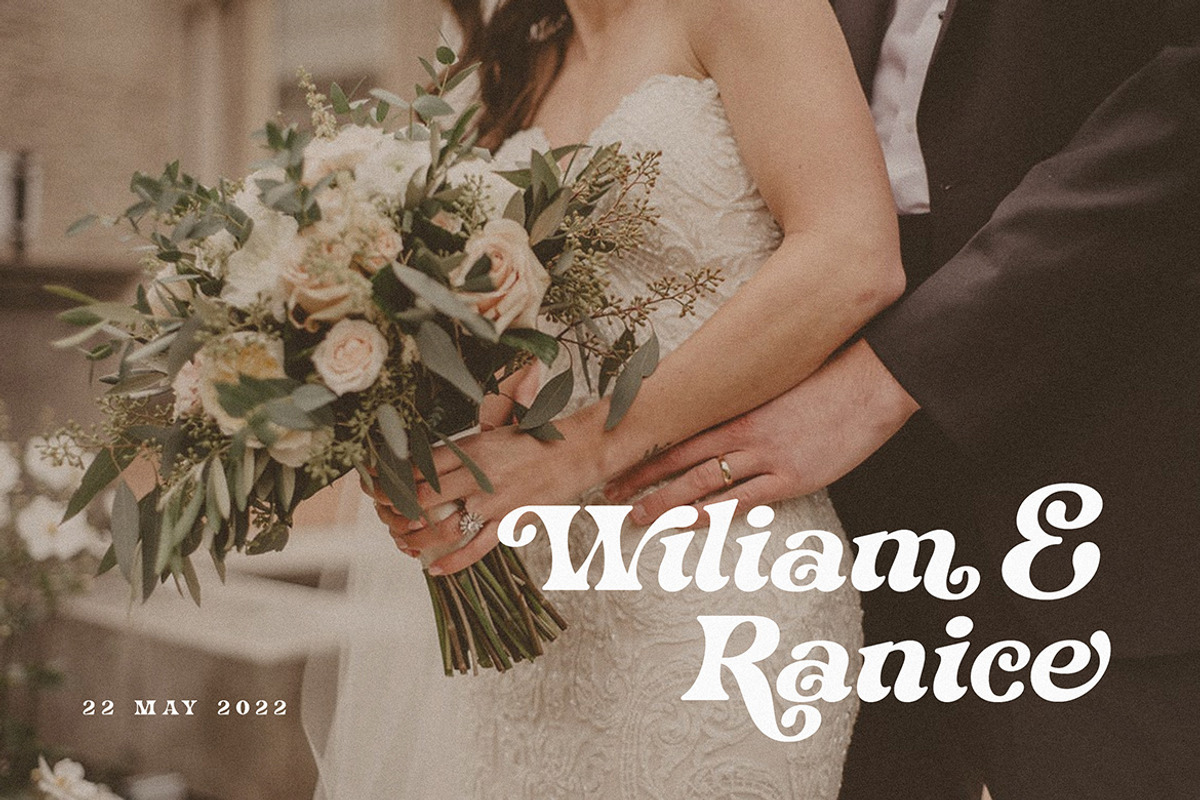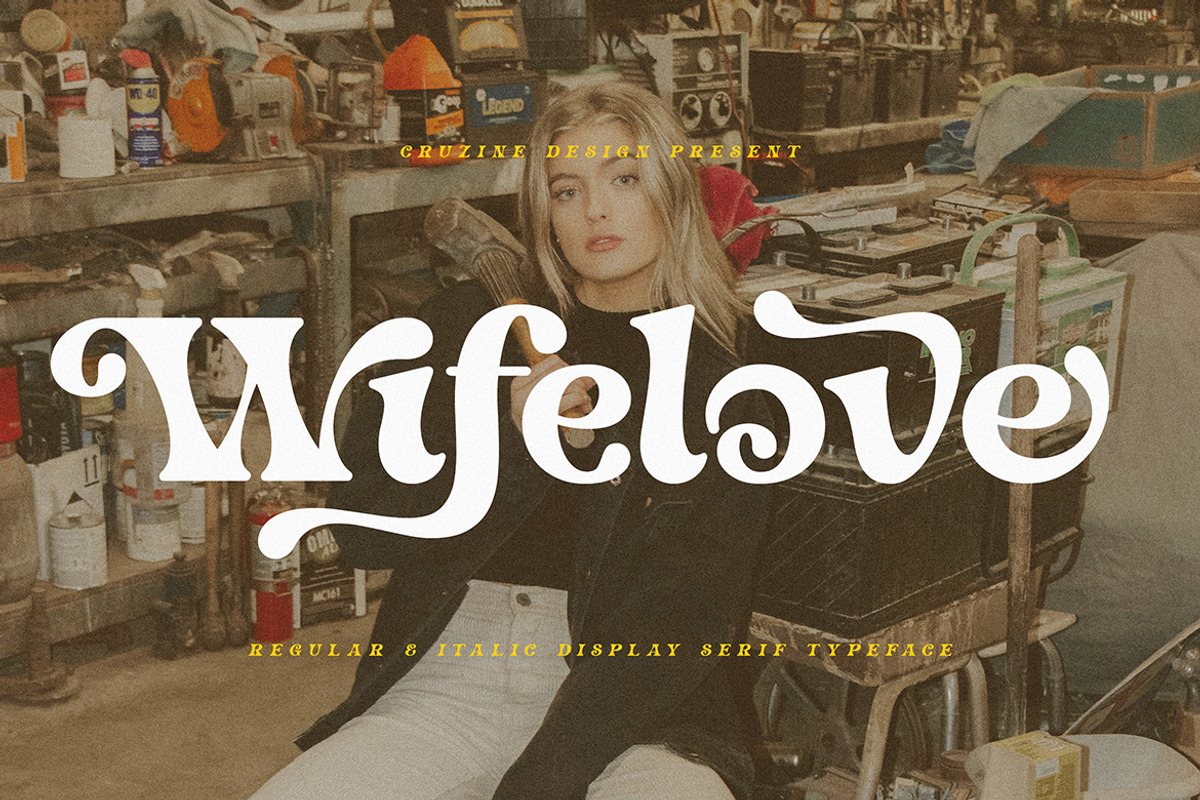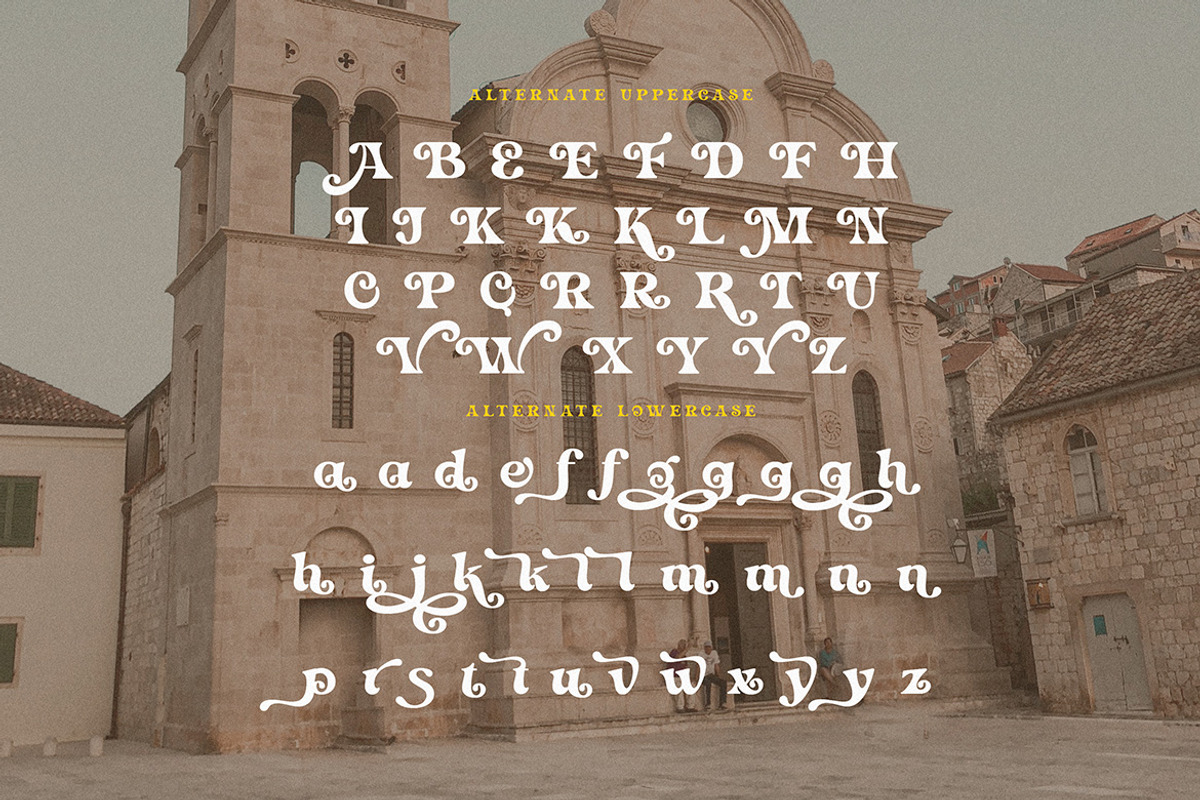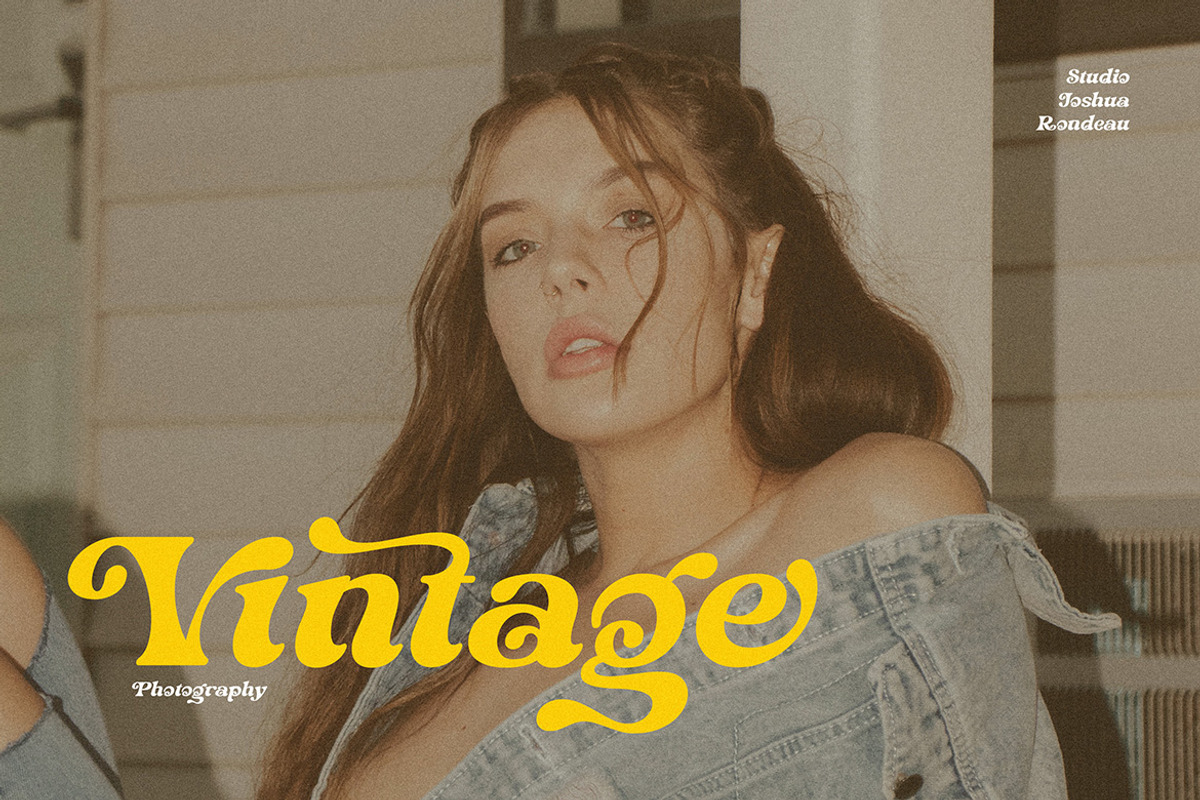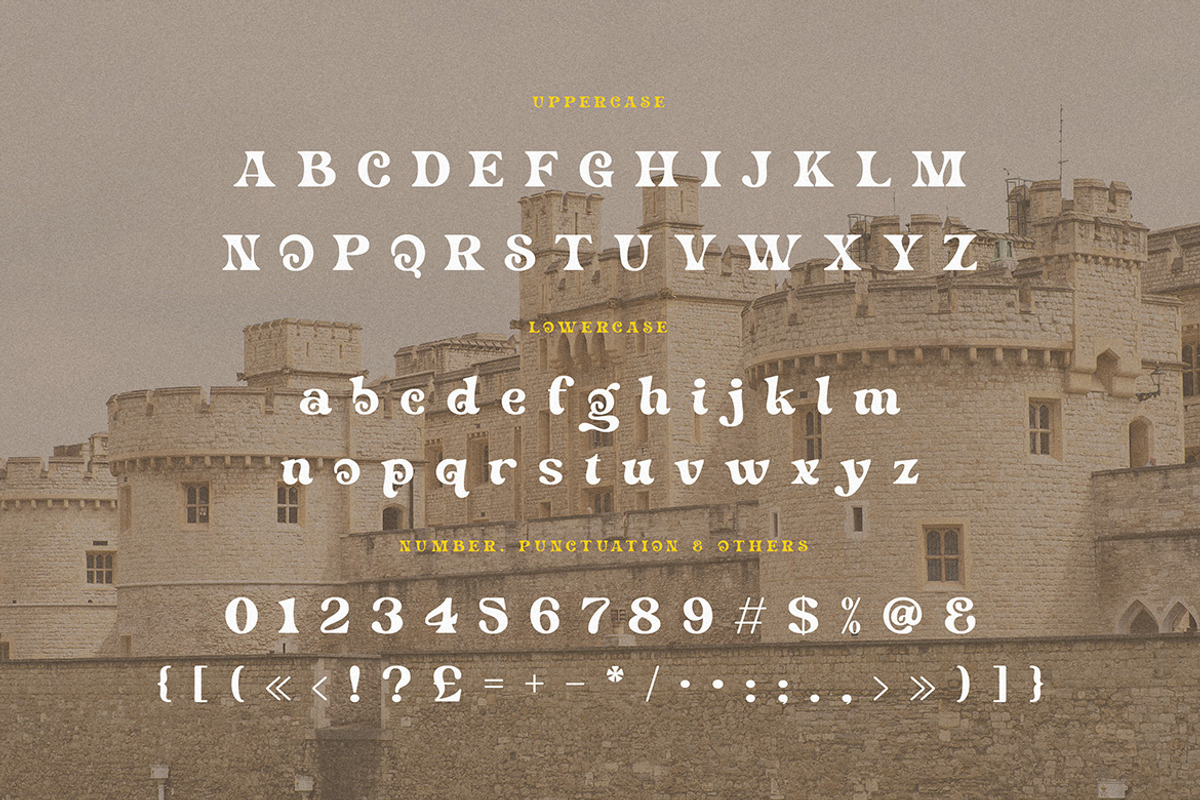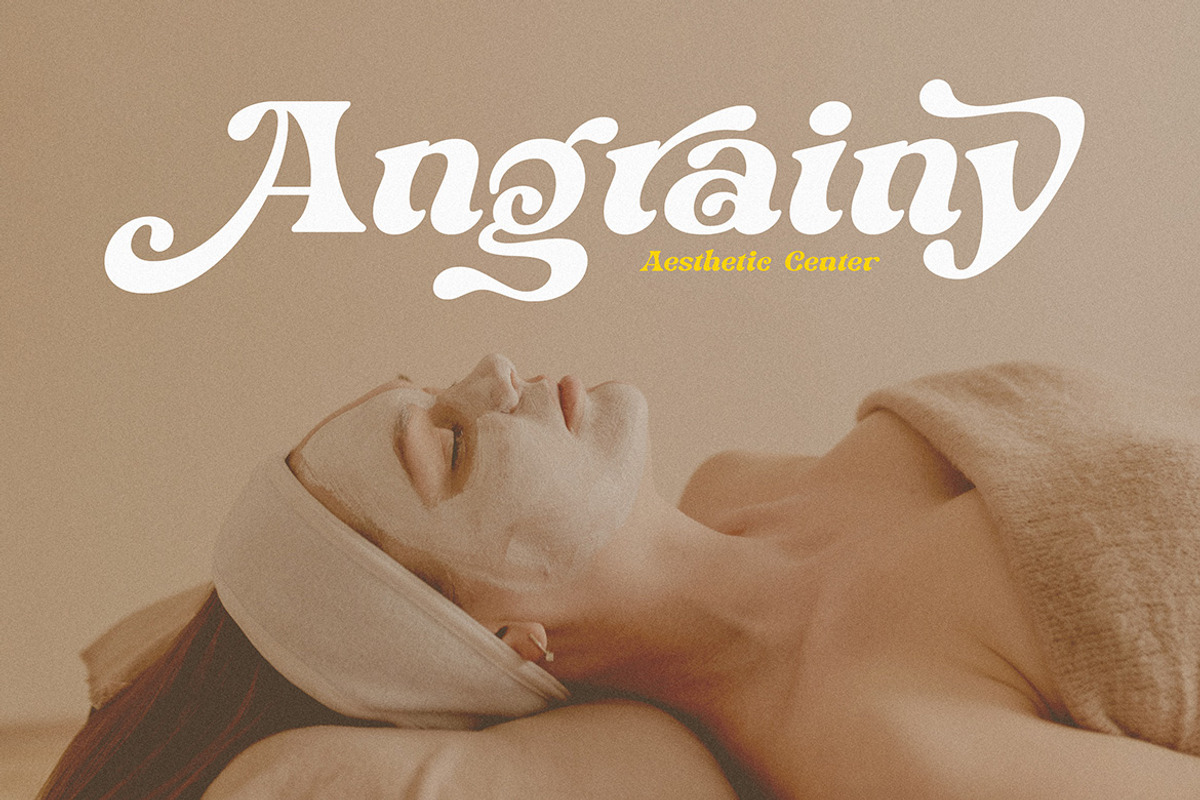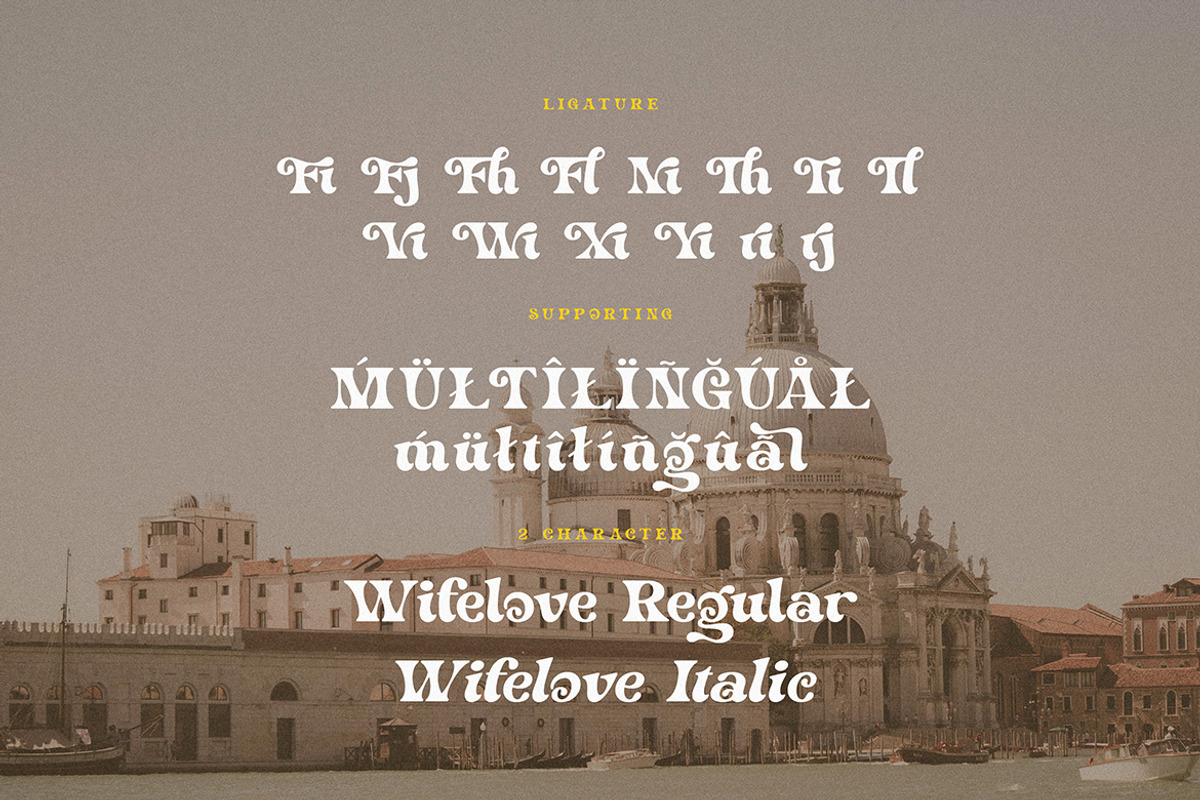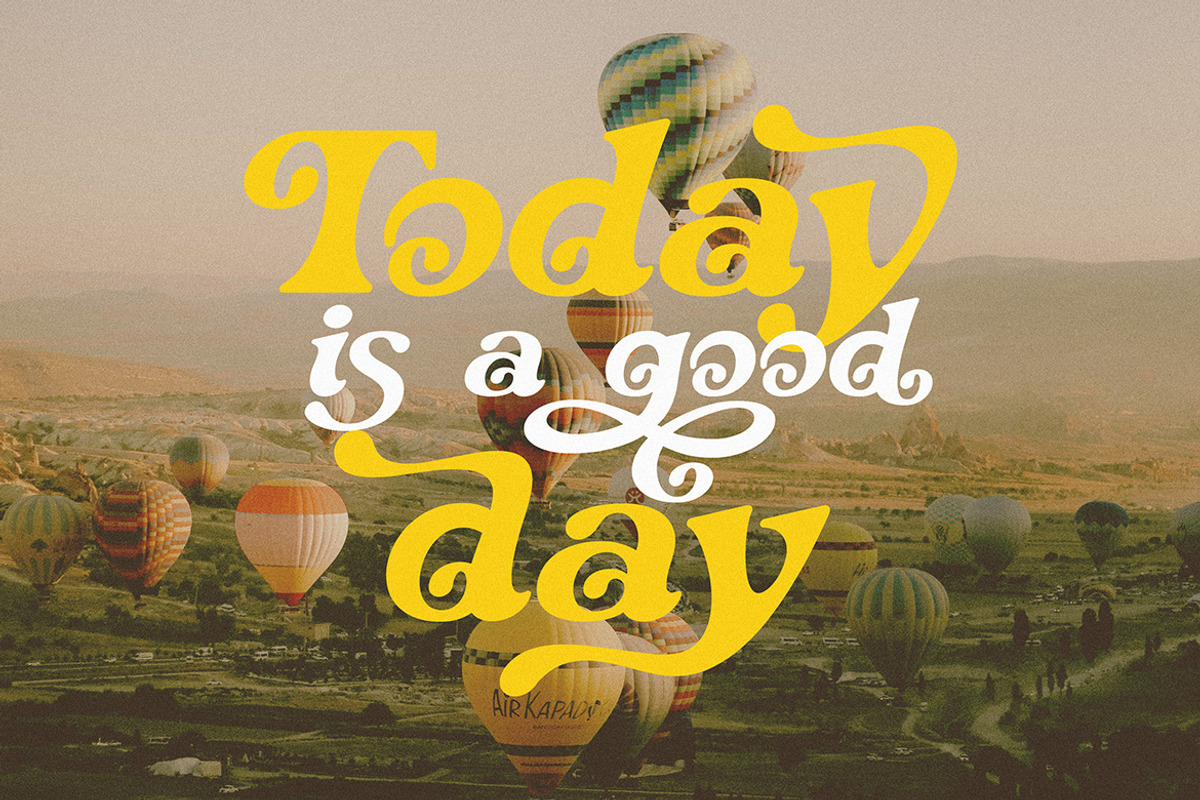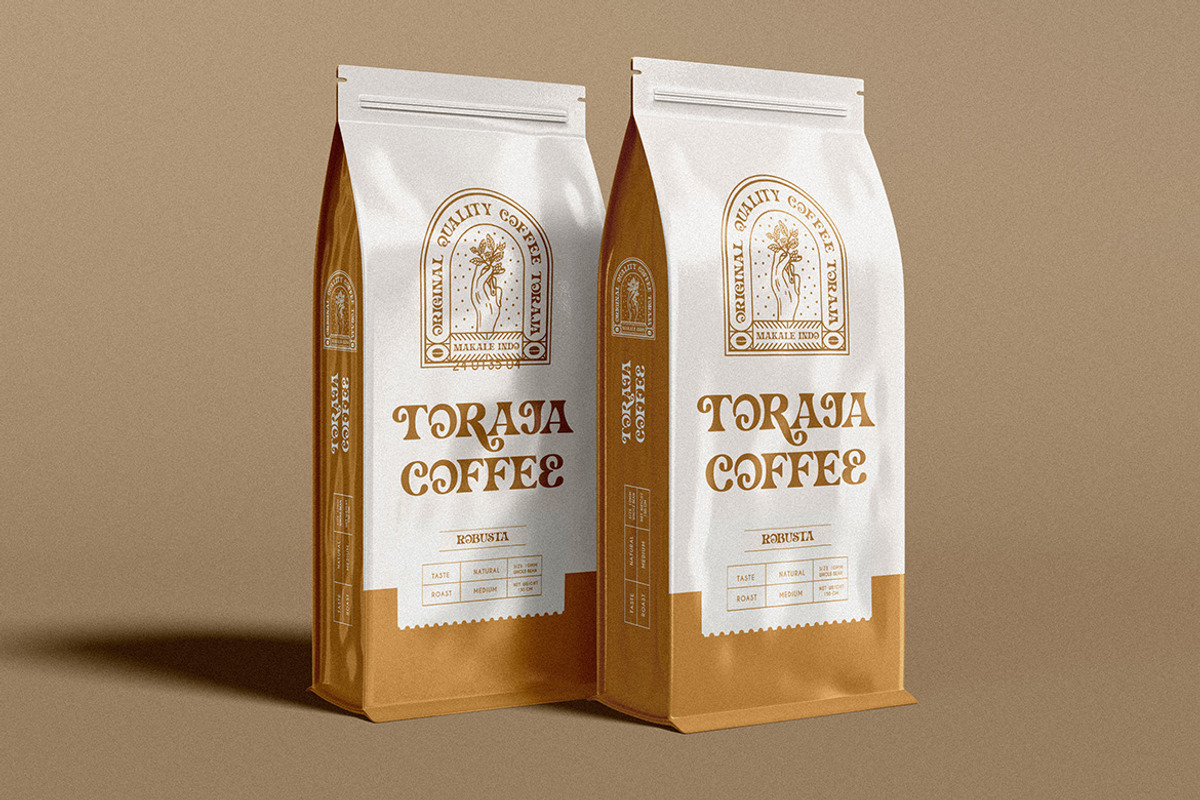
Wifelove - Groovy Retro Serif
Trendy, groovy, crazy & retro style serif font for your fancy projects. Elegant, artistic and funky style on Wifelove font will be great for any branding project. Lot of alternates and ligatures will help you to create unique and original logo design or website header! Enjoy :)
- Lot of alternate characters
- Lot of ligatures
- Great for modern branding projects!